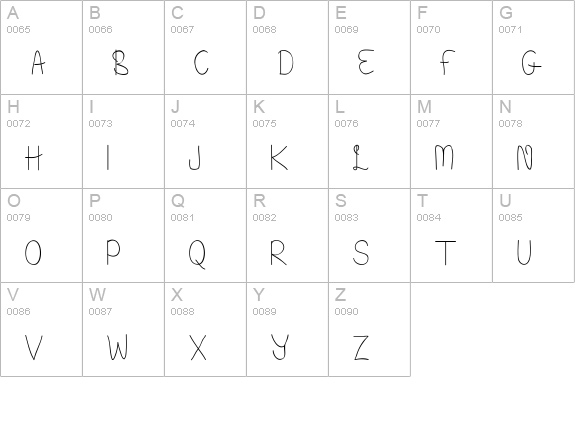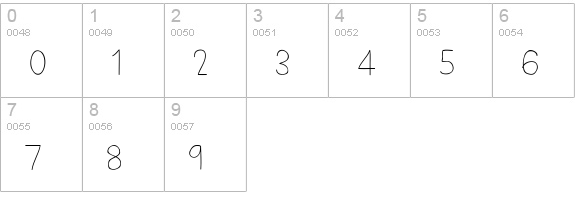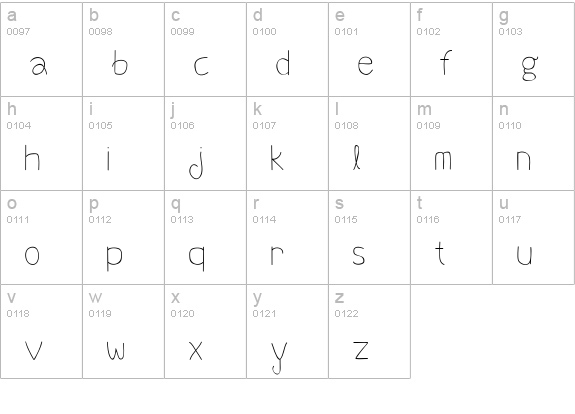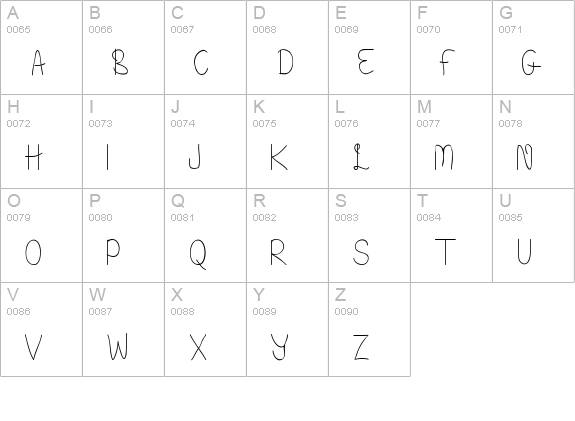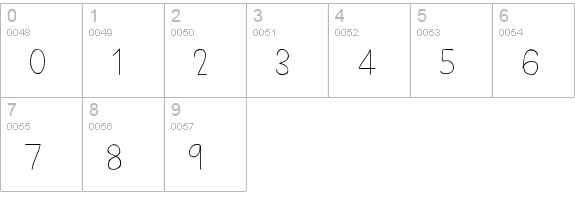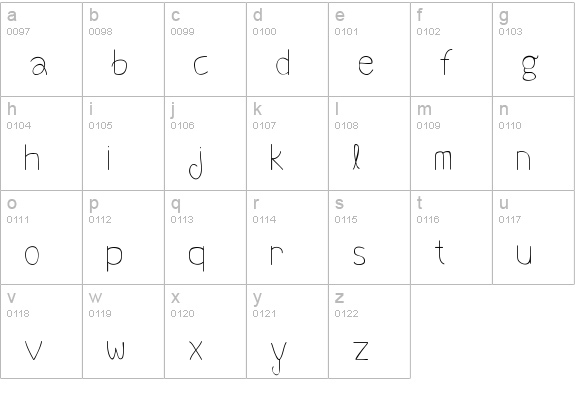
Beneath Your Beautiful Font Details
Beneath Your Beautiful font is an exquisite typeface that captures the essence of elegance and allure. With its delicate strokes and intricate details, this font exudes a sense of sophistication and beauty. Its graceful curves and unique letterforms make it a perfect choice for a wide range of design projects. What sets Beneath Your Beautiful font apart is not just its stunning aesthetic, but also its accessibility. This font is freely available to download at FontsMarket.com, allowing designers, creatives, and enthusiasts alike to easily incorporate it into their works. Whether you are creating a logo, designing a website, or crafting a beautiful invitation, Beneath Your Beautiful font will add a touch of elegance and refinement to any project. The versatility of Beneath Your Beautiful font is also worth noting. It can effortlessly adapt to both modern and traditional design styles, making it a versatile option for any creative endeavor. Its legibility and clarity ensure that every word and letter stands out, while its distinct style adds a sense of uniqueness and personality to any composition. Furthermore, Beneath Your Beautiful font offers an extensive character set, including uppercase and lowercase letters, numbers, punctuation marks, and special symbols. This comprehensive range of glyphs provides designers with endless possibilities to explore and experiment with their designs, allowing for a truly customized and personalized touch. In conclusion, Beneath Your Beautiful font is a stunning typeface that combines elegance, beauty, and accessibility. Its freely available download at FontsMarket.com makes it easily accessible to all, ensuring that everyone can enjoy the enchanting qualities of this font. Whether used for professional projects or personal creations, Beneath Your Beautiful font is sure to captivate and inspire.